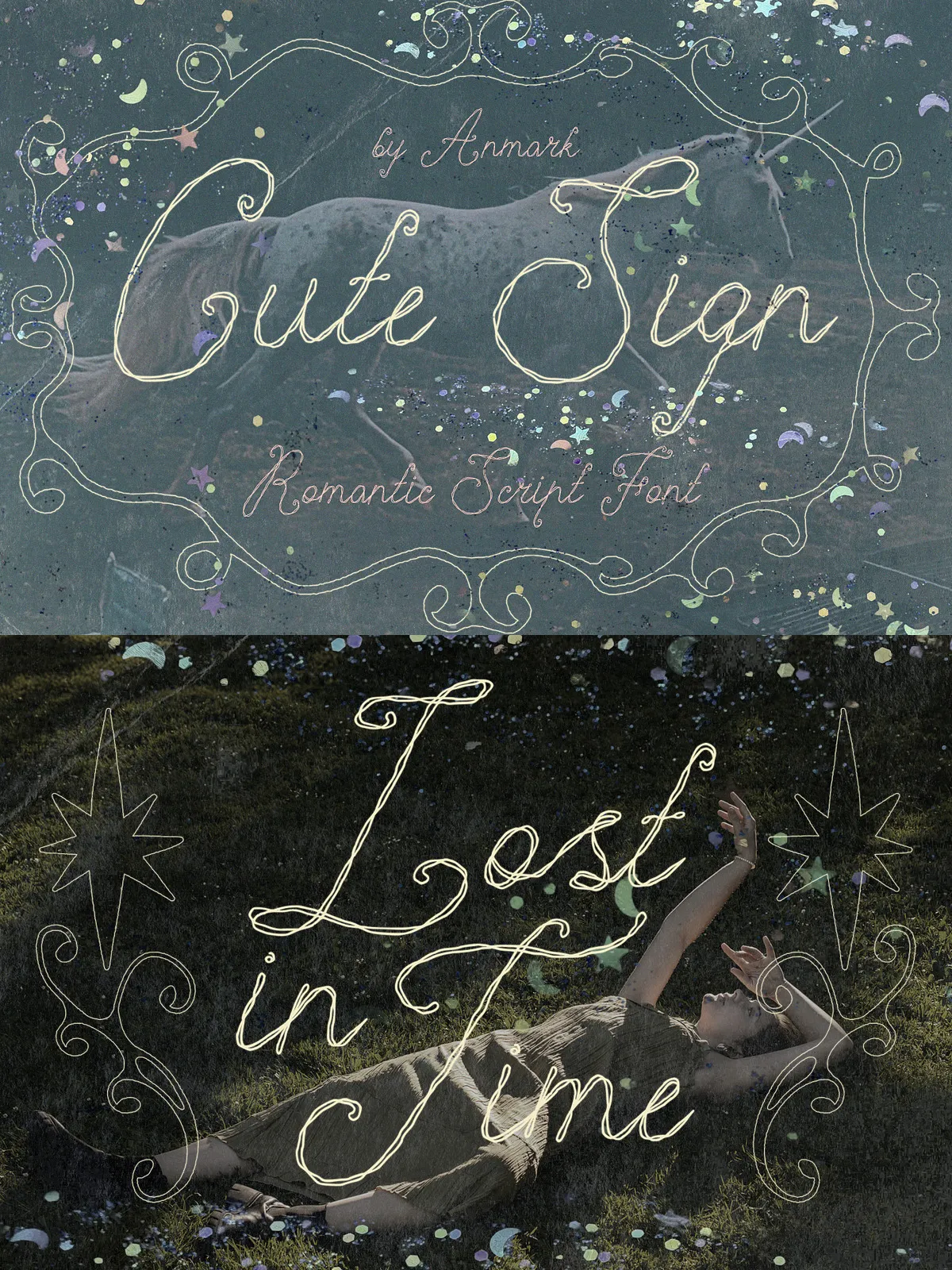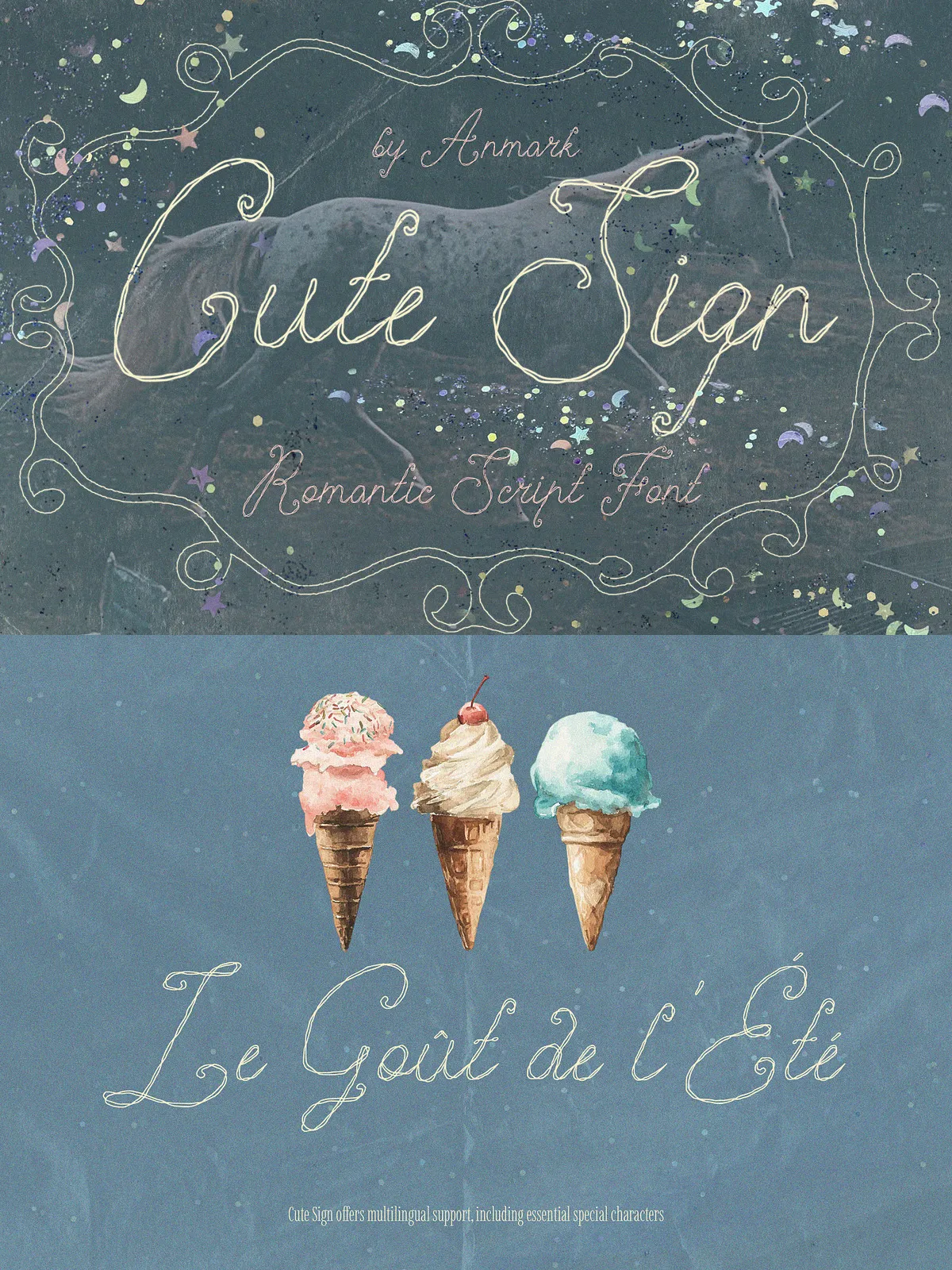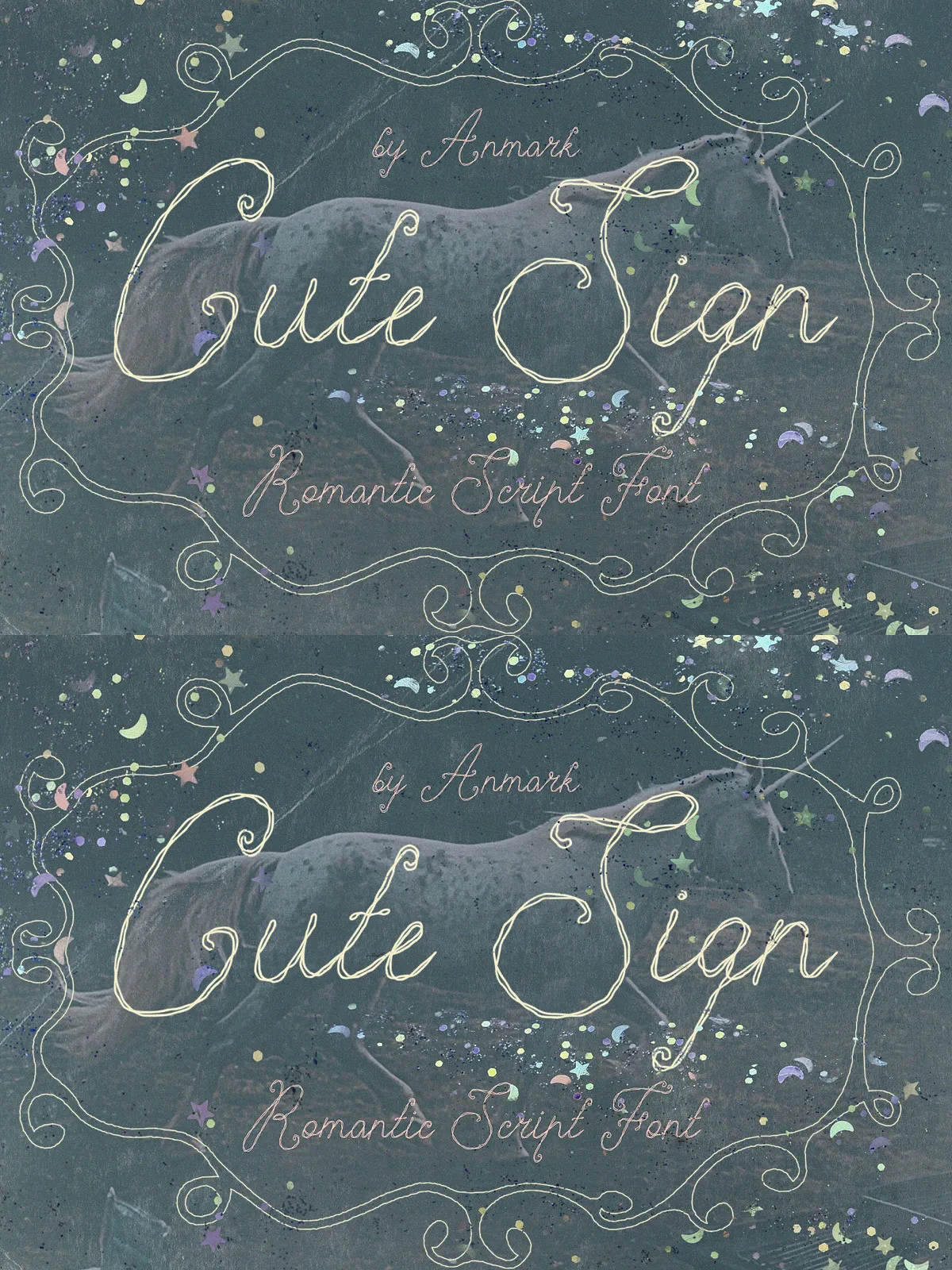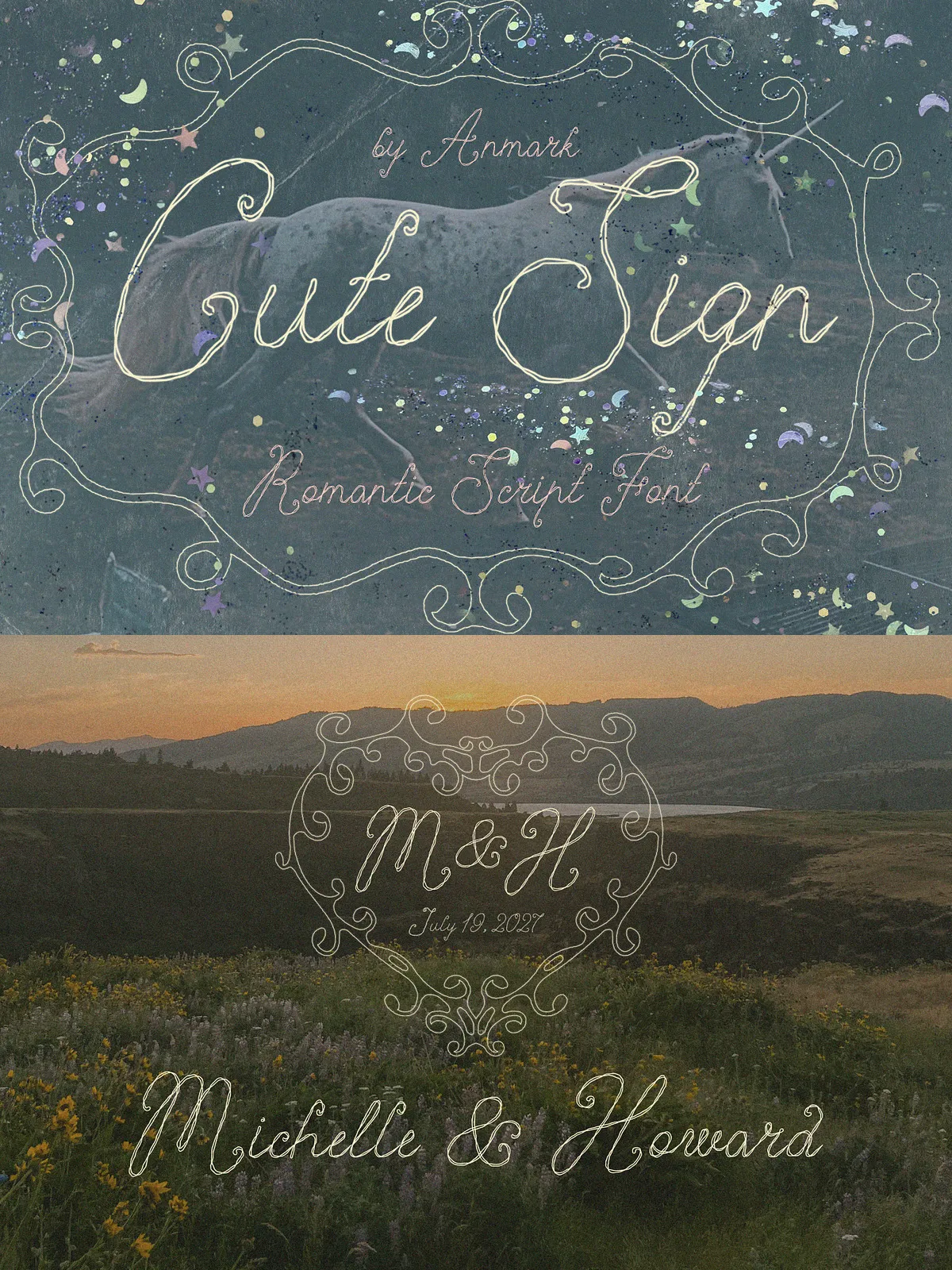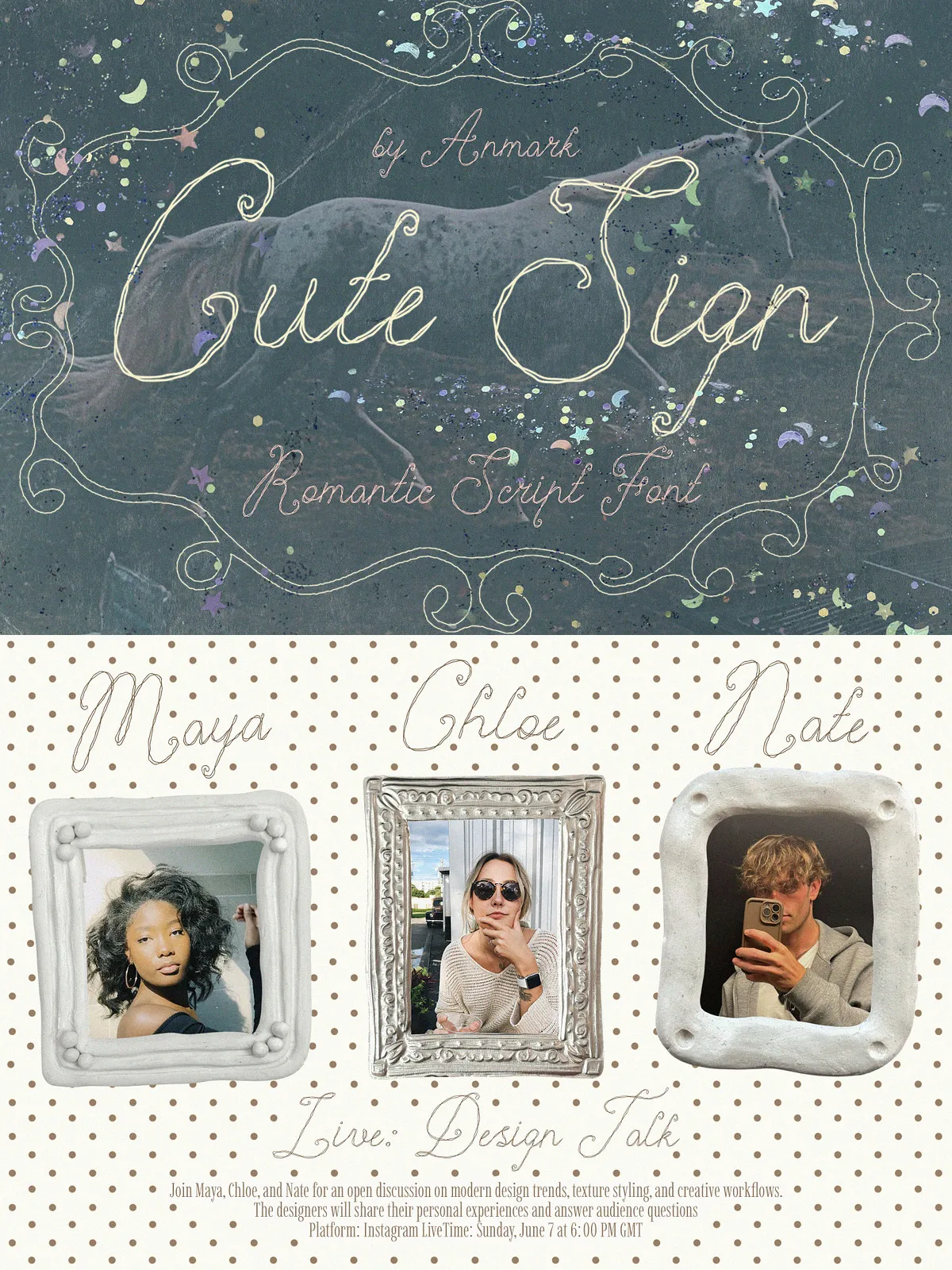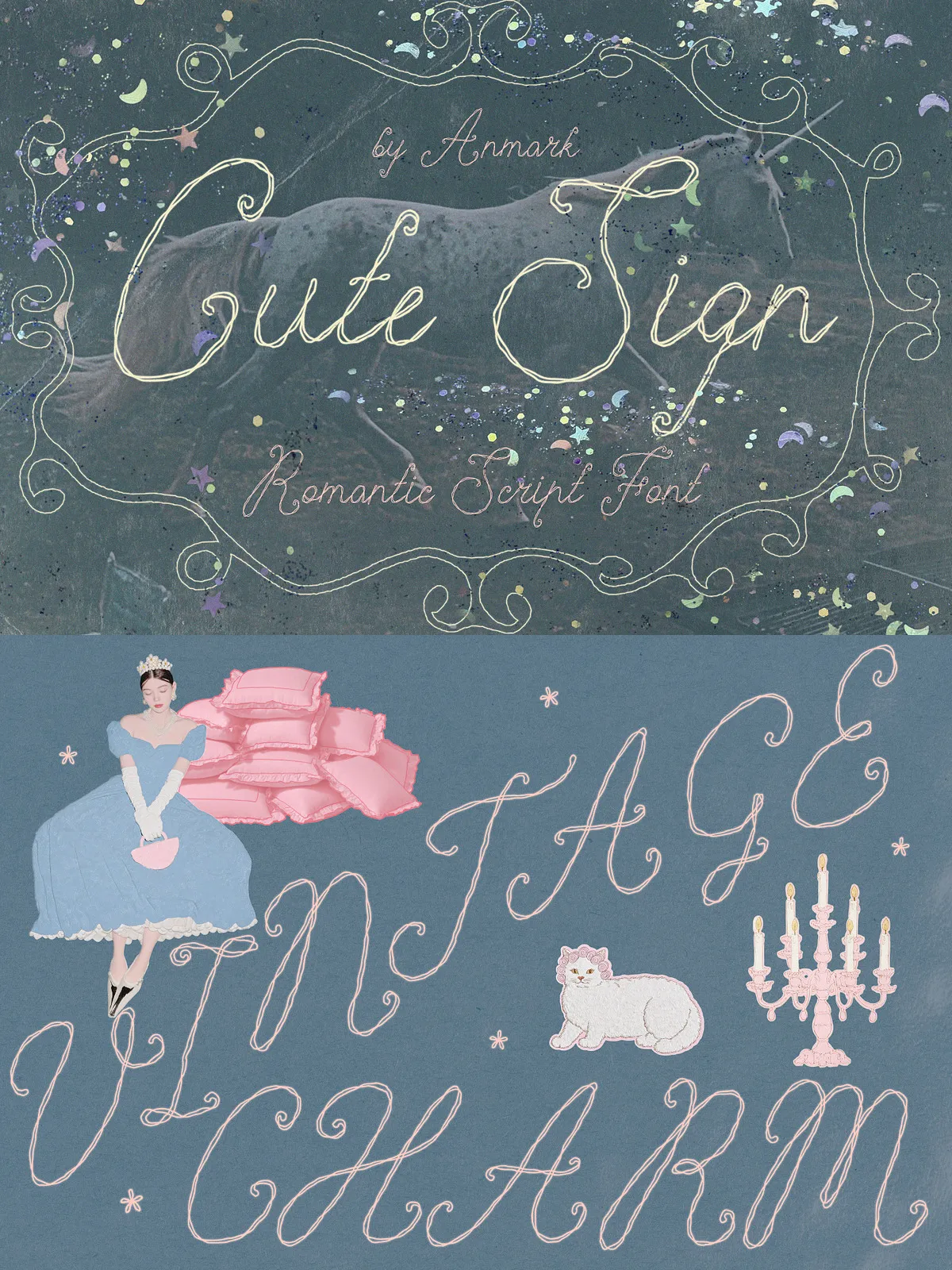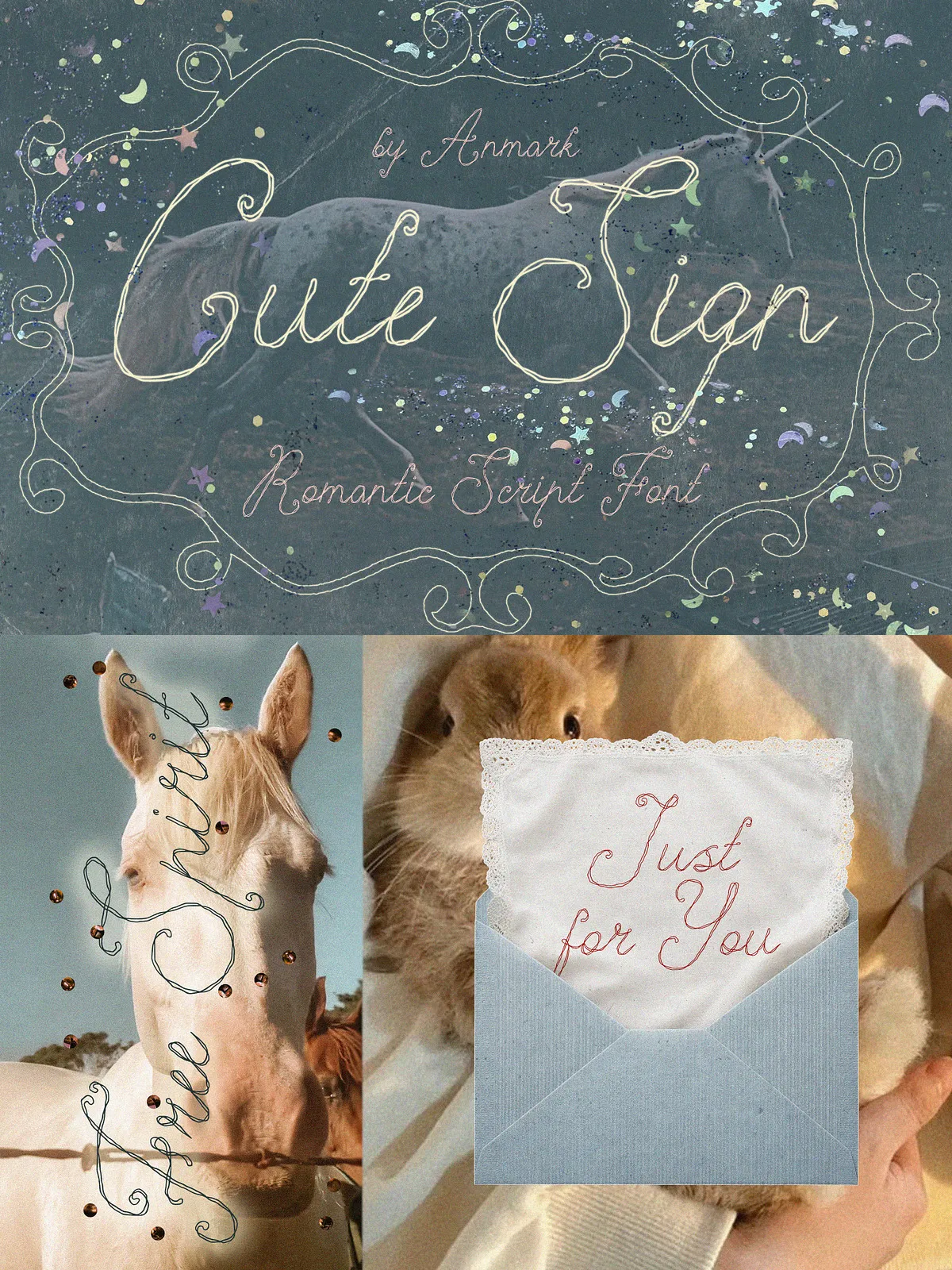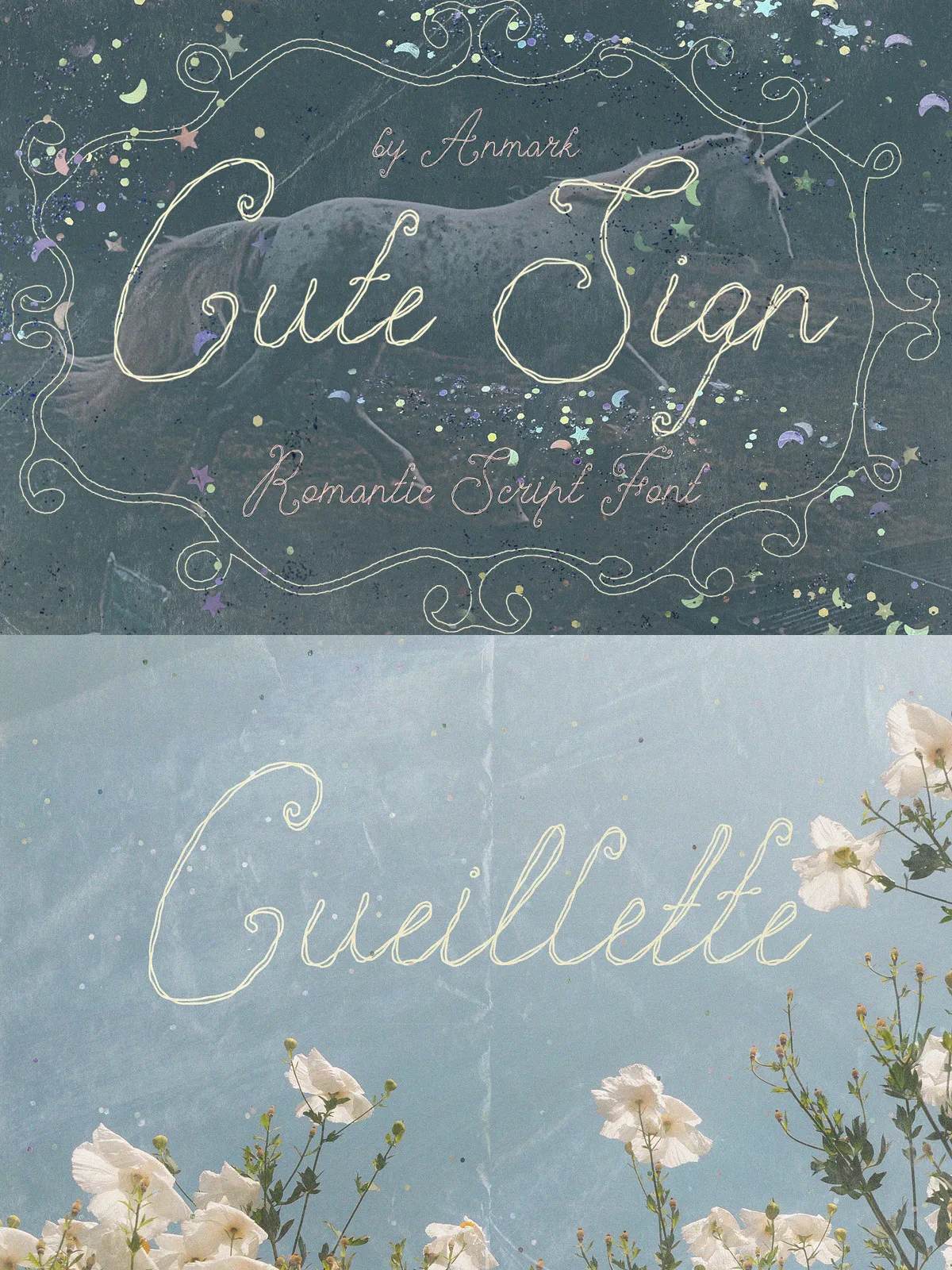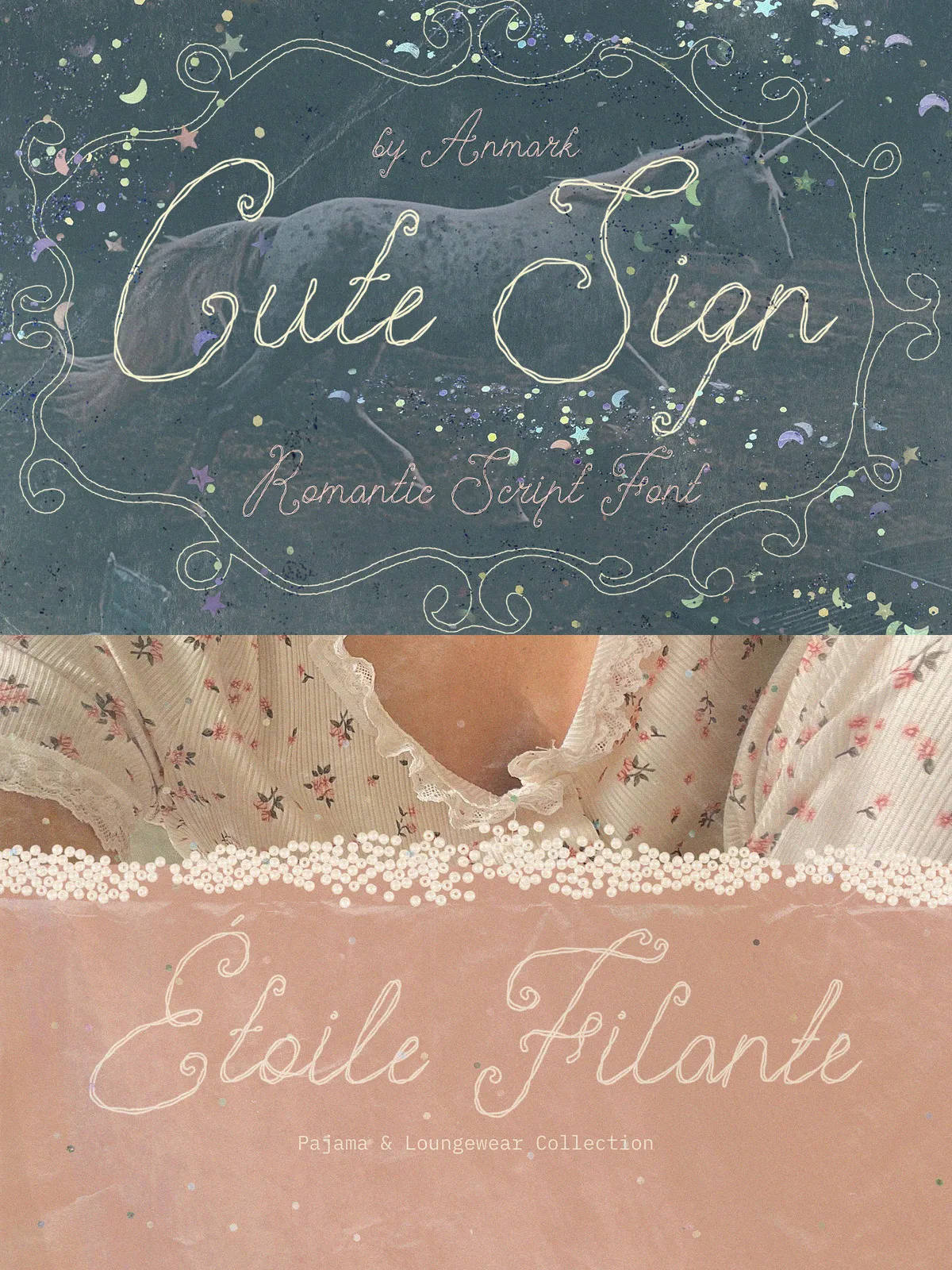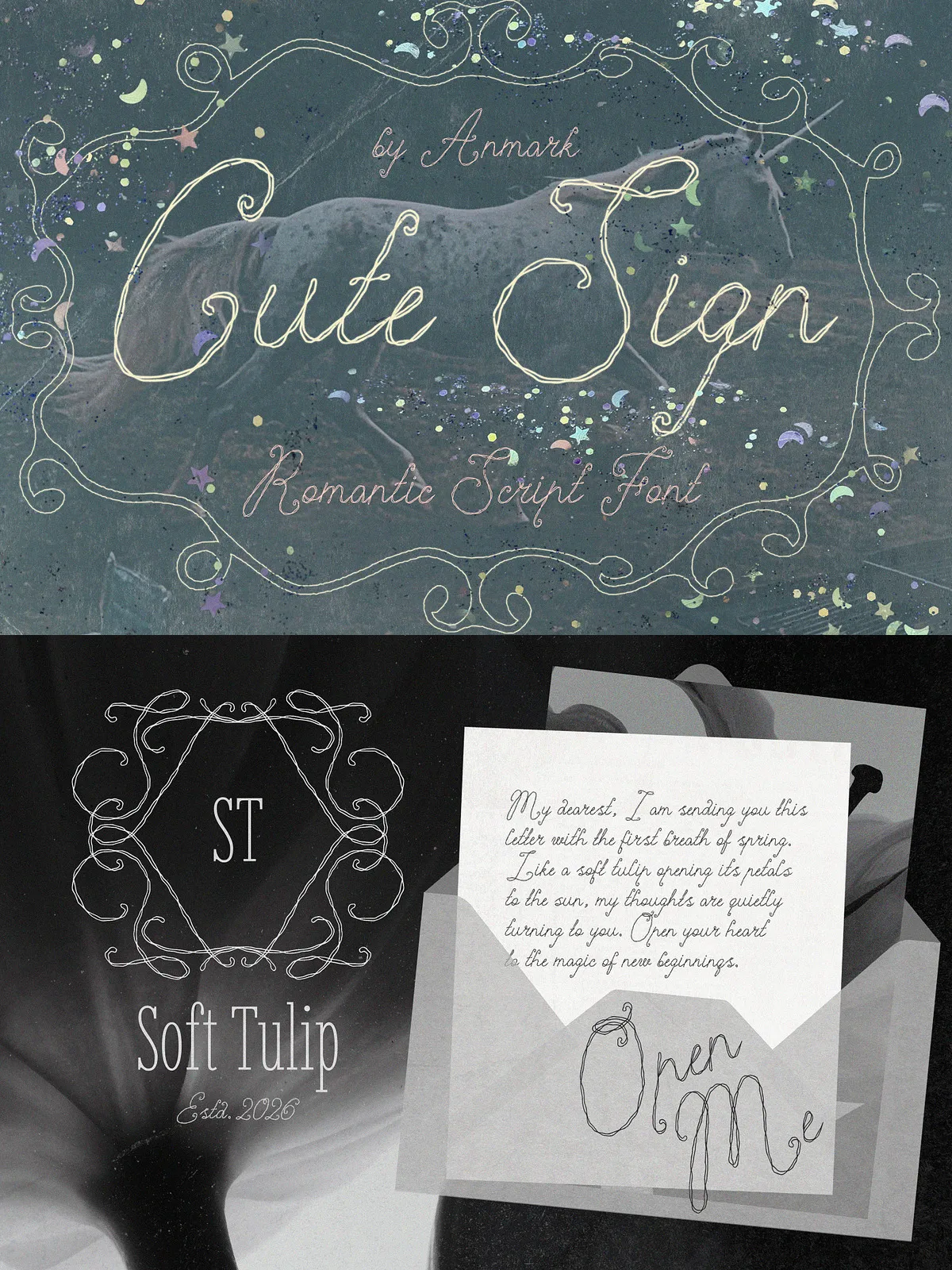
Cute Sign is a textured romantic script font that embraces a delicate, handcrafted sensibility. The typeface presents interwoven fine lines that suggest thin wire, organic thread, or a gentle pencil sketch. Each glyph carries a slightly shaky outline, giving letters a naive, personal character that reads intimate and approachable. Designers will find Cute Sign powerful for projects that demand a quiet, sentimental, and artisanal voice.
Design Details
Handmade Texture and Calligraphic Flow
Cute Sign pairs calligraphic letterforms with subtle texture to create a distinctive visual language. The interlaced strokes and irregular edges mimic the motion of a hand tracing a delicate script, so typography appears alive and tactile. The design balances readability with personality: letters remain clear at display sizes while textures provide depth and warmth.
Organic Irregularities for Authenticity
The shaky contours and fine-line interweaving inject an authentic handmade quality into every word. These purposeful irregularities prevent the font from feeling mechanical; instead, they evoke an artisan’s touch. Use Cute Sign when you want typography to feel candid, tender, and authentic.
Applications
Perfect Contexts and Sectors
Cute Sign shines in contexts that benefit from romantic, cozy, or boutique styling. Apply it to wedding invitations and stationery to create intimate, memorable announcements. Use it for greeting cards and nursery decor to evoke tenderness and charm. The font also performs well for boutique packaging, nightwear branding, floral shops, and social media graphics that aim for a soft, emotive aesthetic.
- Lowercase Alternates: Switch between alternate glyphs to enhance the handmade, variable look and achieve bespoke word shapes.
- Multilingual Support: Includes essential accented characters to support common Western languages and international layouts.
- High-Resolution Texture: Maintains its textured detail and readability on dark or patterned backgrounds and in high-resolution print.
- Display Optimization: Optimized for large display sizes—headlines, invitations, and packaging labels—where its characterful texture can make the most impact.
Styling, Pairing, and Best Practices
Effective Combinations
Pair Cute Sign with clean, neutral sans-serifs for body copy to preserve legibility and hierarchy. A restrained serif can add warmth and structure when you need more formal compositions. Keep supporting typography minimal so the textured script remains the focal point.
Color, Scale, and Background
Use muted pastels, warm neutrals, or vintage-inspired palettes to amplify the romantic tone. For legibility, apply the font primarily at display sizes—titles, headings, and short phrases—and increase letter spacing slightly when using intricate textures. When placing Cute Sign over patterned or photographic backgrounds, apply subtle overlays or contrast-enhancing backgrounds to preserve clarity.
Practical Tips for Designers
- Reserve Cute Sign for headlines, callouts, and short lines of text rather than dense paragraphs.
- Use alternates sparingly to maintain natural variability without creating legibility issues.
- Export high-resolution assets for print to preserve texture detail and avoid raster artifacts.
- Test multilingual outputs to ensure accented glyphs align visually with base characters.